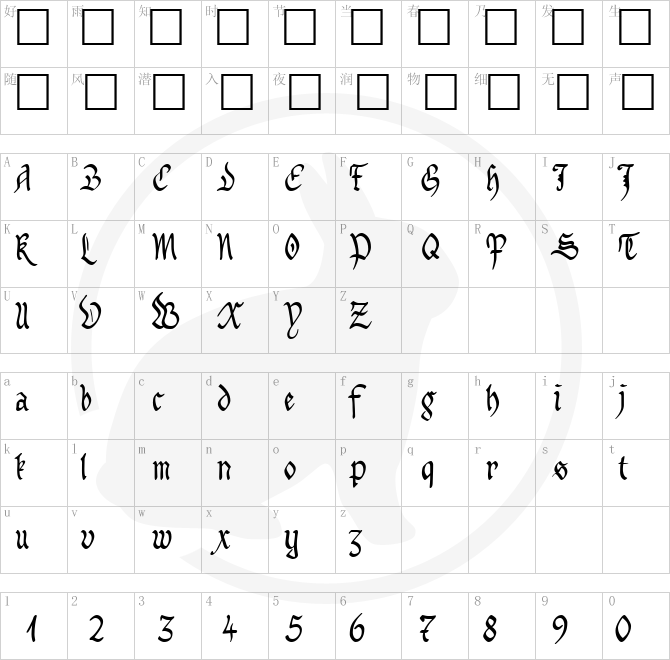
- Font Name:MA Bastard Anglicana DB
MA-Bastard-Anglicana-DB.ttf is a very beautiful artistic font, MA-Bastard-Anglicana-DB.ttf is widely used in the design and printing of various books and pictures,MA-Bastard-Anglicana-DB.ttf has a strong visual impact,MA-Bastard-Anglicana-DB.ttf is a commonly used font in newspapers, magazines and books, and is used in posters, e-commerce Poster design, store design, logo design, font design and other fields.MA-Bastard-Anglicana-DB.